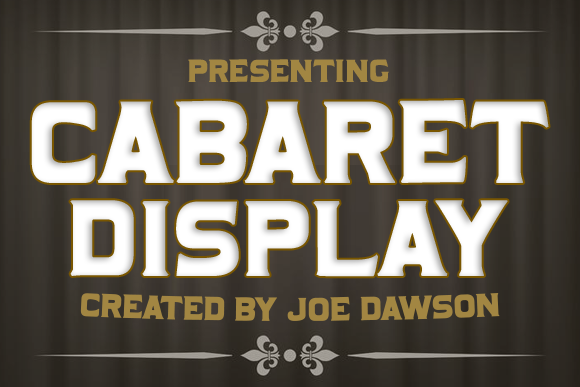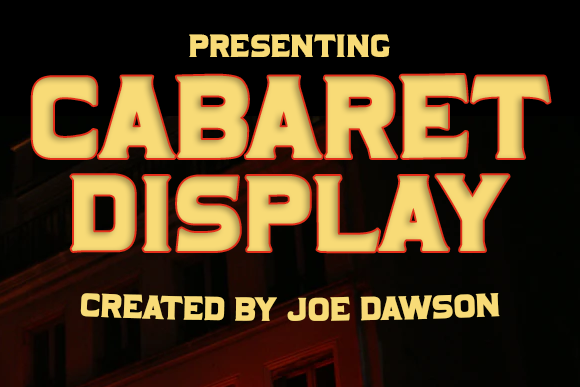
Cabaret Display Font: A Timeless, Vintage Typeface for Artistic Projects
Are you looking for a font that can add a touch of nostalgia and artistic flair to your design projects? Look no further than the Cabaret Display font. This bold, Toulouse Lautrec-inspired typeface is perfect for creating eye-catching posters, flyers, and other visual materials that require a vintage, artistic feel.
The Inspiration Behind Cabaret Display
Cabaret Display font is named after the iconic cabarets of 19th-century Paris, which were famous for their extravagant posters and advertisements. The font is inspired by the works of Henri de Toulouse Lautrec, a renowned French artist and poster designer who is widely regarded as one of the pioneers of the Art Nouveau movement. Toulouse Lautrec’s posters, with their bold typography and striking imagery, continue to influence designers and artists to this day.
Key Features of Cabaret Display Font
Cabaret Display font boasts a range of features that make it an ideal choice for designers and crafters looking to add a touch of vintage glamour to their projects. Some of its key features include:
• Bold and eye-catching: Cabaret Display font is a bold, attention-grabbing typeface that is perfect for creating striking headlines and titles.
• Nostalgic feel: The font’s vintage-inspired design gives it a nostalgic feel that is sure to evoke memories of a bygone era.
• Artistic flair: Cabaret Display font has an artistic, hand-drawn quality that makes it perfect for use in creative projects.
• Highly legible: Despite its bold and ornate design, Cabaret Display font is highly legible, making it suitable for use in a wide range of applications.
Uses for Cabaret Display Font
Cabaret Display font is a versatile typeface that can be used in a wide range of design projects, including:
• Posters and flyers: The font’s bold, attention-grabbing design makes it perfect for creating eye-catching posters and flyers.
• Logos and branding: Cabaret Display font can be used to create unique and memorable logos and branding materials.
• Invitations and event materials: The font’s vintage-inspired design makes it ideal for use in invitations, event programs, and other materials.
• Packaging and product design: Cabaret Display font can add a touch of elegance and sophistication to packaging and product design.
Tips for Using Cabaret Display Font
Here are a few tips for using Cabaret Display font in your design projects:
• Use it sparingly: Due to its bold and ornate design, Cabaret Display font is best used sparingly to avoid overwhelming the viewer.
• Pair it with complementary fonts: The font pairs well with simpler, sans-serif fonts that can provide a nice contrast to its bold design.
• Experiment with colors: Cabaret Display font looks great in a range of colors, from bold and bright to muted and pastel.
Cabaret Display font is a timeless, vintage typeface that is perfect for designers and crafters looking to add a touch of artistic flair to their projects. With its bold, eye-catching design and nostalgic feel, it’s an ideal choice for creating striking posters, flyers, logos, and other visual materials. Whether you’re a professional designer or a DIY crafter, Cabaret Display font is sure to inspire your creativity and help you create something truly special.